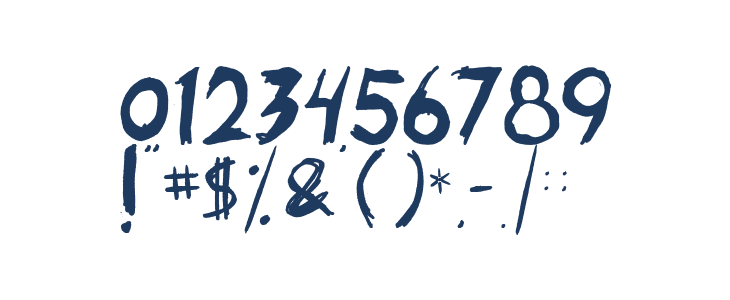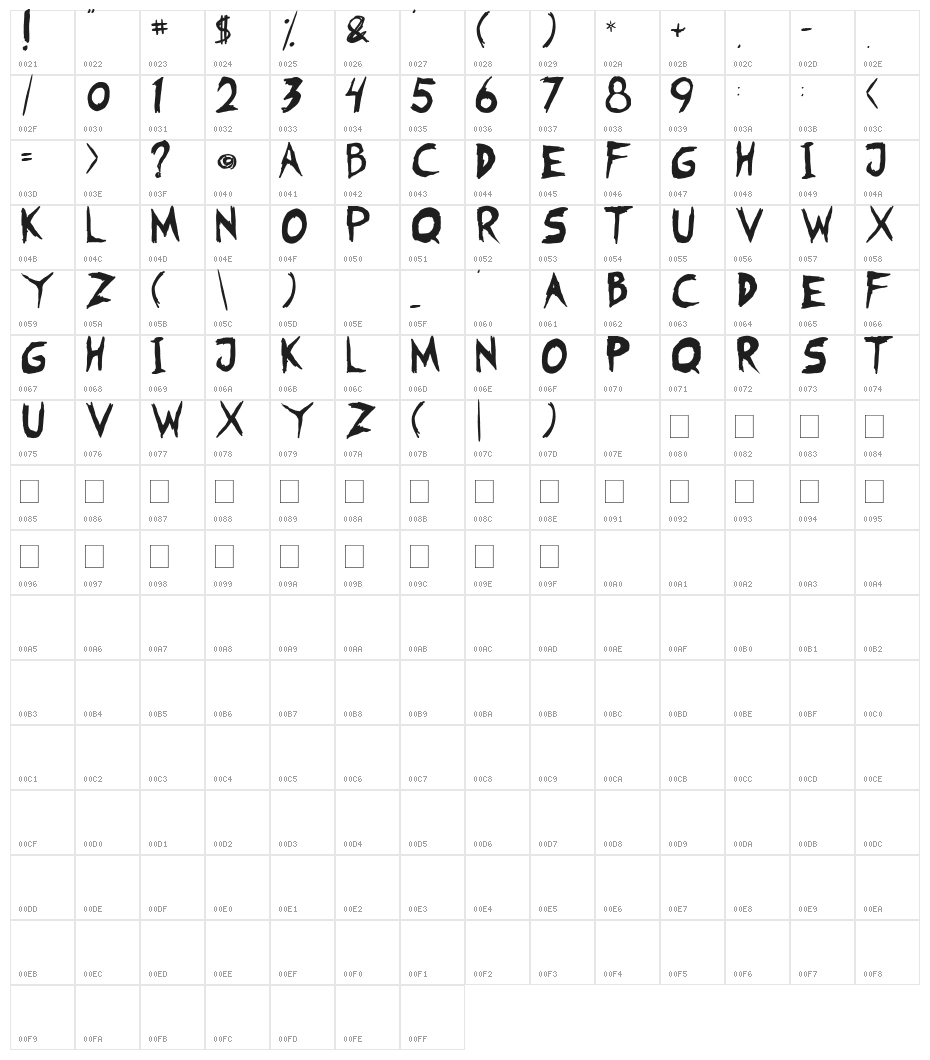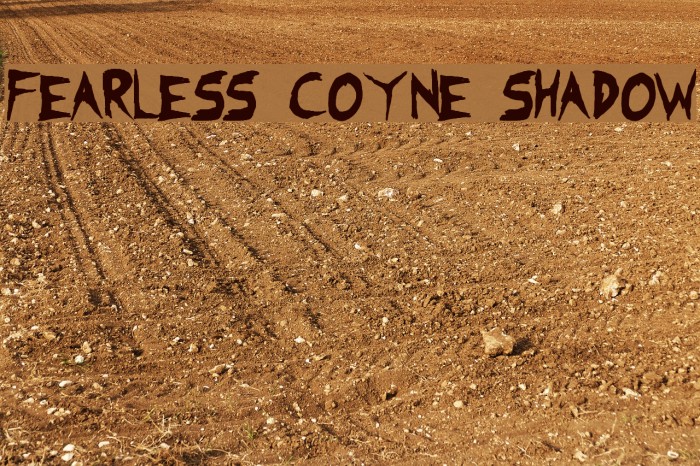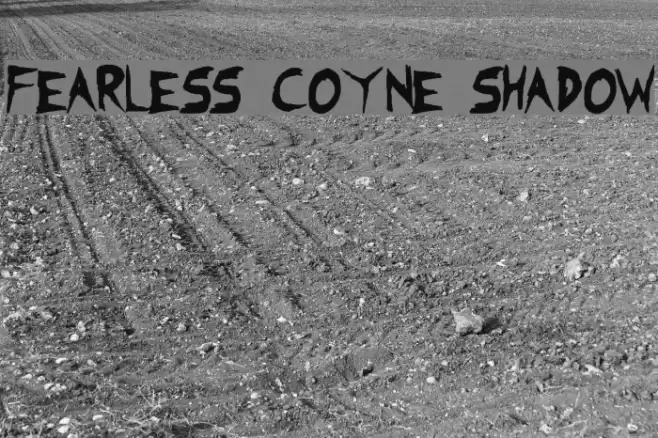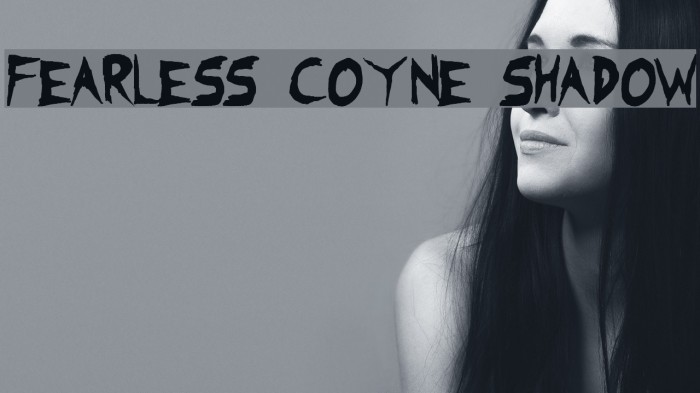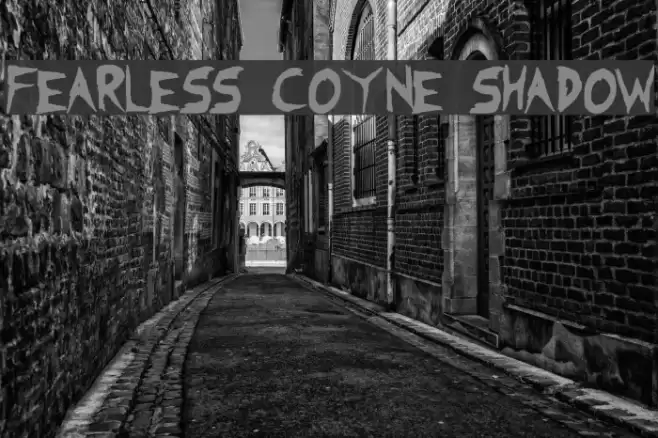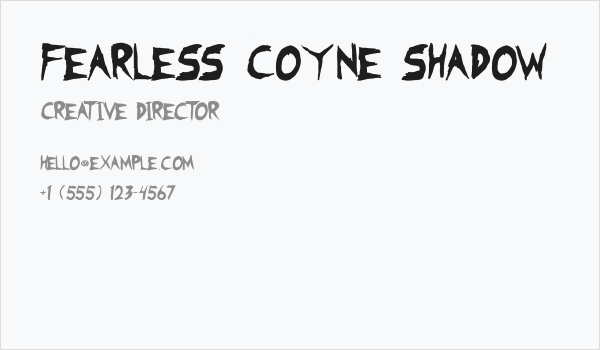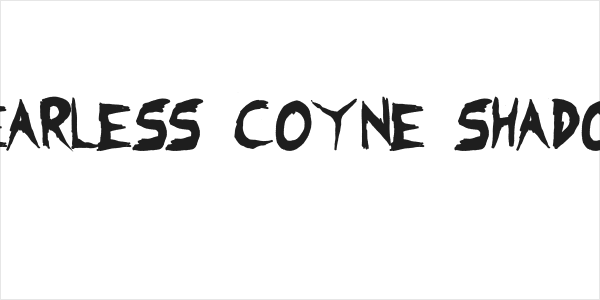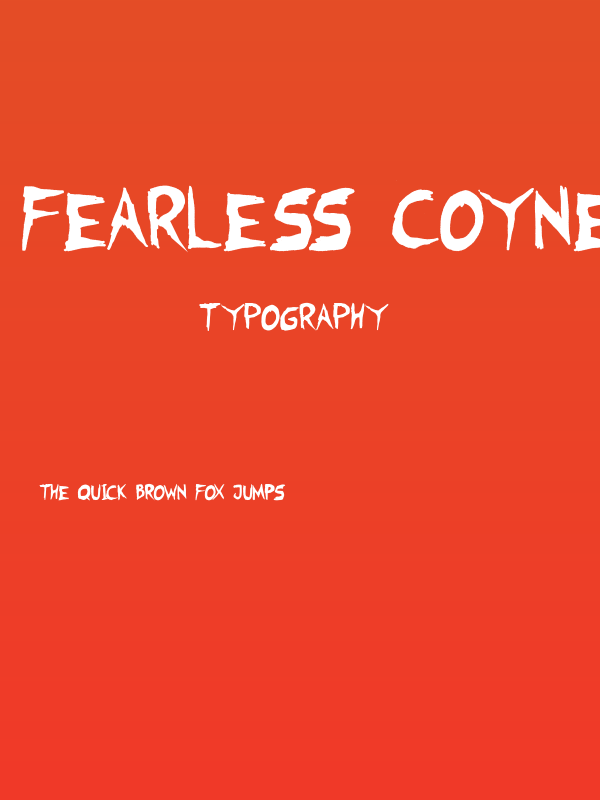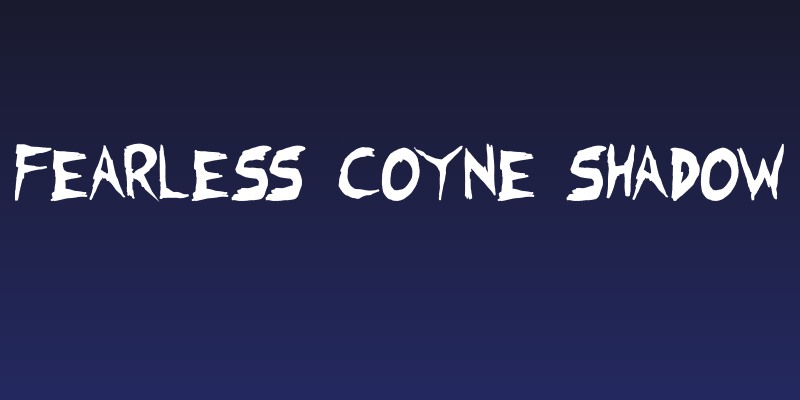
Fearless Coyne Shadow Font
Fearless Coyne Shadow Description
This font exudes a bold and dynamic presence with its brush-like strokes and irregular edges, giving it a hand-drawn, artistic feel. The uppercase and lowercase letters maintain a consistent style, characterized by their thick, uneven lines and slightly jagged appearance. The numbers and special characters follow the same aesthetic, ensuring a cohesive look across all glyphs. Its energetic and raw style makes it stand out, perfect for projects that require a touch of creativity and boldness.
| Proposed Projects | Ideal for posters, album covers, graffiti art, and any design needing a bold, artistic touch. |